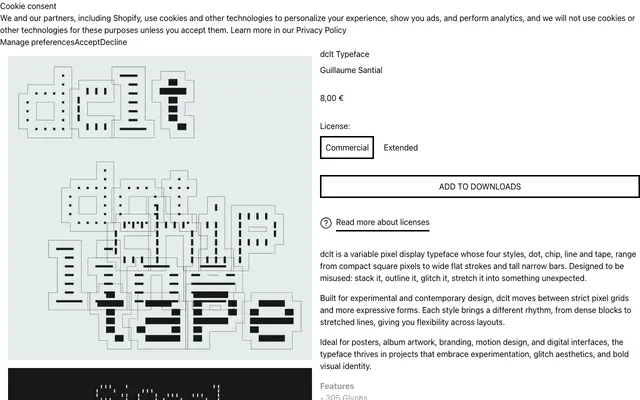
dclt Typeface
A variable pixel display typeface in four distinct styles, from dense dot grids to tall narrow tape bars, built for experimental and glitch-influenced work.
Four styles, dot, chip, line and tape, each bring a different visual rhythm ranging from compact square pixels to wide flat strokes and stretched vertical bars. Variable technology gives designers flexibility across layouts, and the family is explicitly designed to be pushed beyond conventional use: stacked, outlined, glitched or distorted. With 305 glyphs including diacritics, alternates and mathematical symbols, it covers the practical needs of posters, album artwork, motion design and digital interfaces.
A variable pixel display typeface built around strict pixel grids; its four styles (dot, chip, line, tape) span compact square pixels to wide flat strokes, firmly placing it in the display/pixel category.